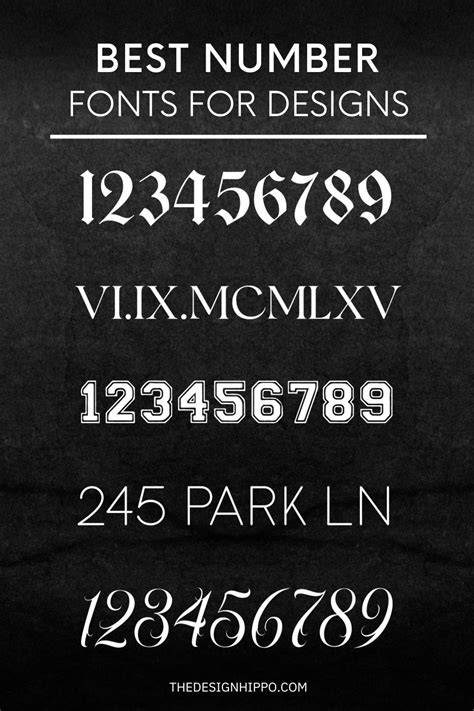
Everything You Need To Know About Number Fonts
Number fonts are becoming increasingly popular in the modern world of graphic design and typography. Whether you’re a designer, a typographer, or a layman, you’ve probably seen number fonts used in many different forms of media. But what are number fonts, and why should you use them? This article will answer all your questions about number fonts and explain why they’re an important part of any design project.
What are Number Fonts?
Number fonts, or numerical fonts, are typefaces that feature numbers instead of letters. These fonts are used in a variety of applications, from digital signage to financial documents. Number fonts are designed to be easy to read and understand, even at a distance. There are a wide variety of number fonts available, ranging from classic styles to modern and funky designs.
Why Use Number Fonts?
Number fonts can be a great way to add visual interest to any project. By using number fonts, you can create a unique and eye-catching look that will stand out from the crowd. Number fonts can also be used to draw attention to important information in a document or presentation. For example, if you’re creating a financial report, you can use number fonts to highlight important figures or numbers.
Types of Number Fonts
There are many different types of number fonts available. Some of the most popular are sans serif, serif, script, and monospaced fonts. Sans serif fonts don’t have any extra flourishes, while serif fonts do. Script fonts are designed to look like handwriting, while monospaced fonts are designed to fit within a certain amount of space.
Getting Started with Number Fonts
If you’re new to using number fonts, it’s important to take some time to familiarize yourself with the different types and styles. Look at examples from other designers to get an idea of what works and what doesn’t. Once you’ve got a good handle on the basics, you can start experimenting and creating your own unique designs. Just remember to keep it simple and don’t overcomplicate the design.
Using Number Fonts for Your Projects
Once you’ve mastered the basics of number fonts, you can start using them in your own projects. Number fonts can be used for a variety of applications, from digital signage to financial documents. They’re also great for adding visual interest to any project. Just remember to keep the design simple and don’t overcomplicate it. With a little practice, you’ll be creating stunning designs in no time!